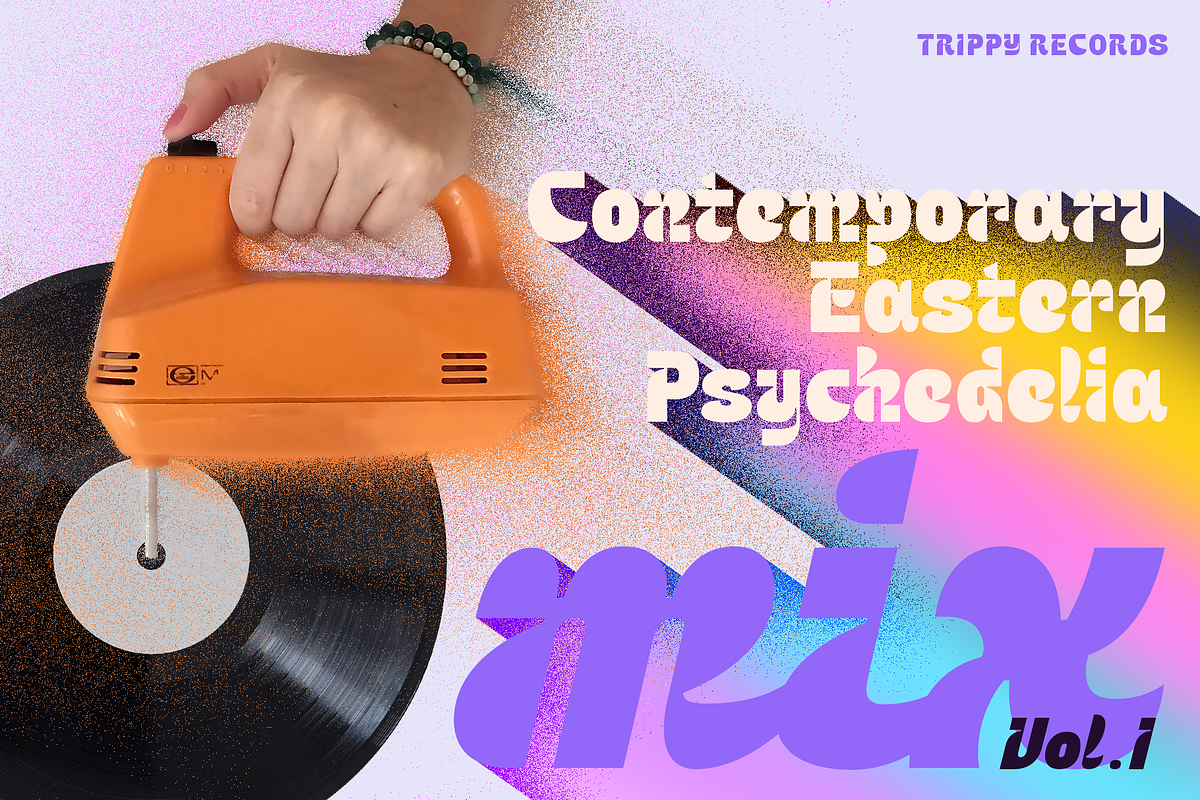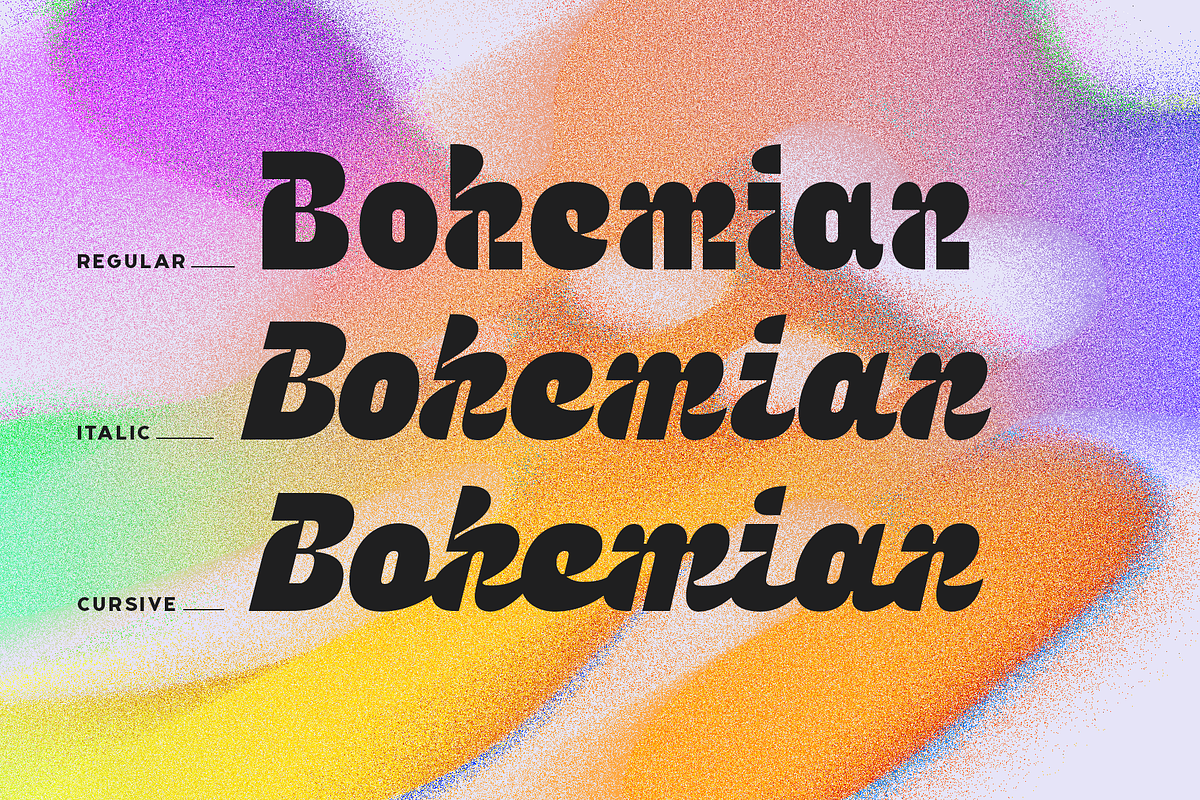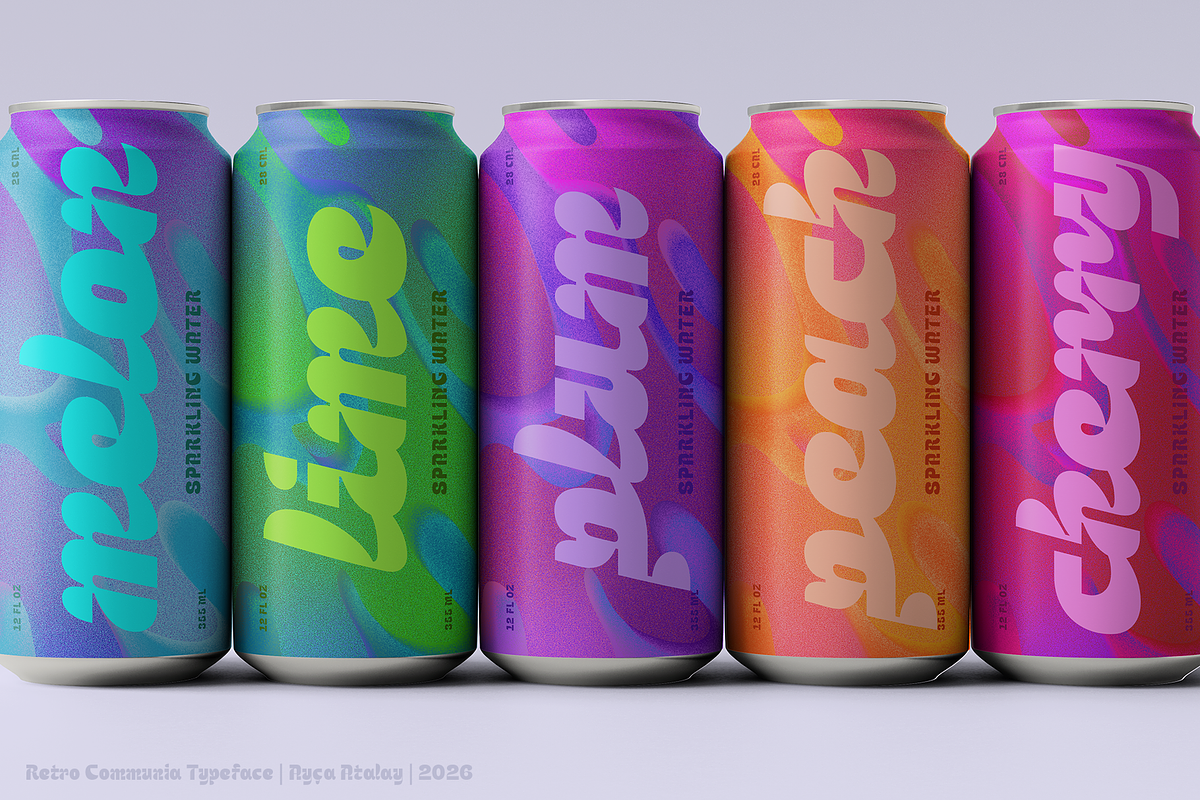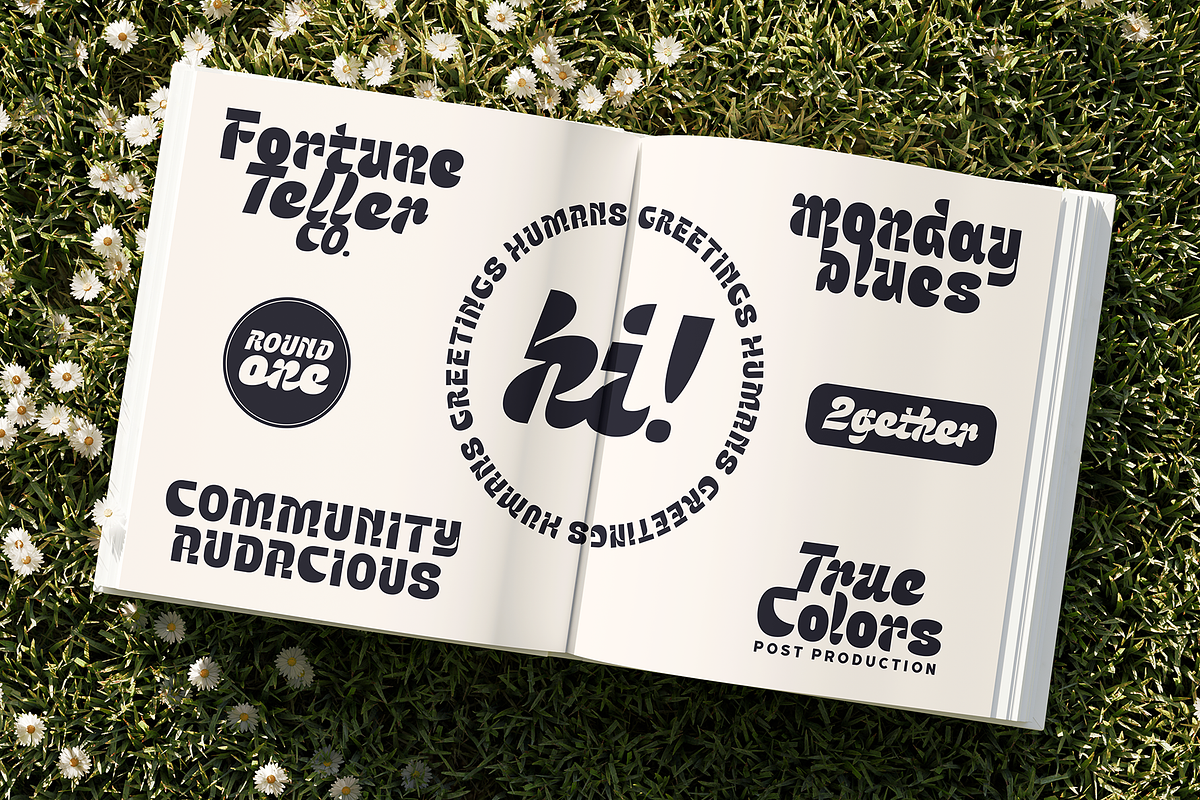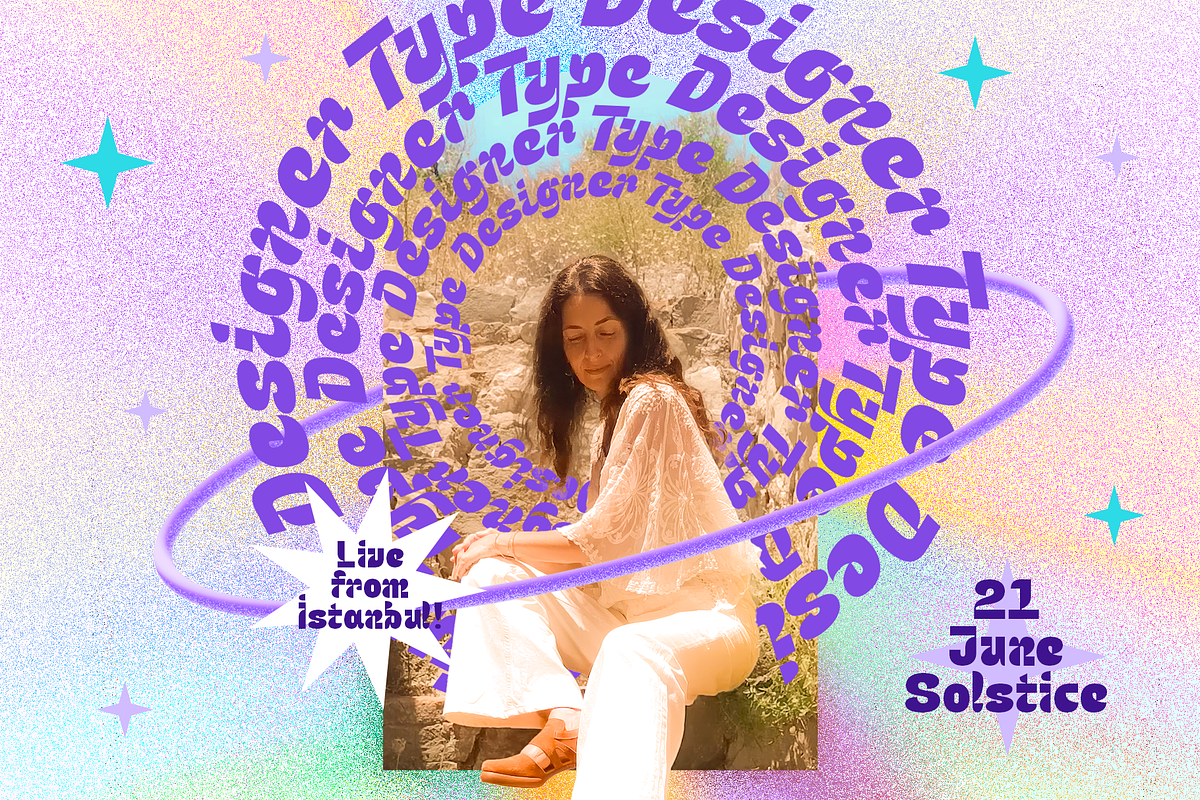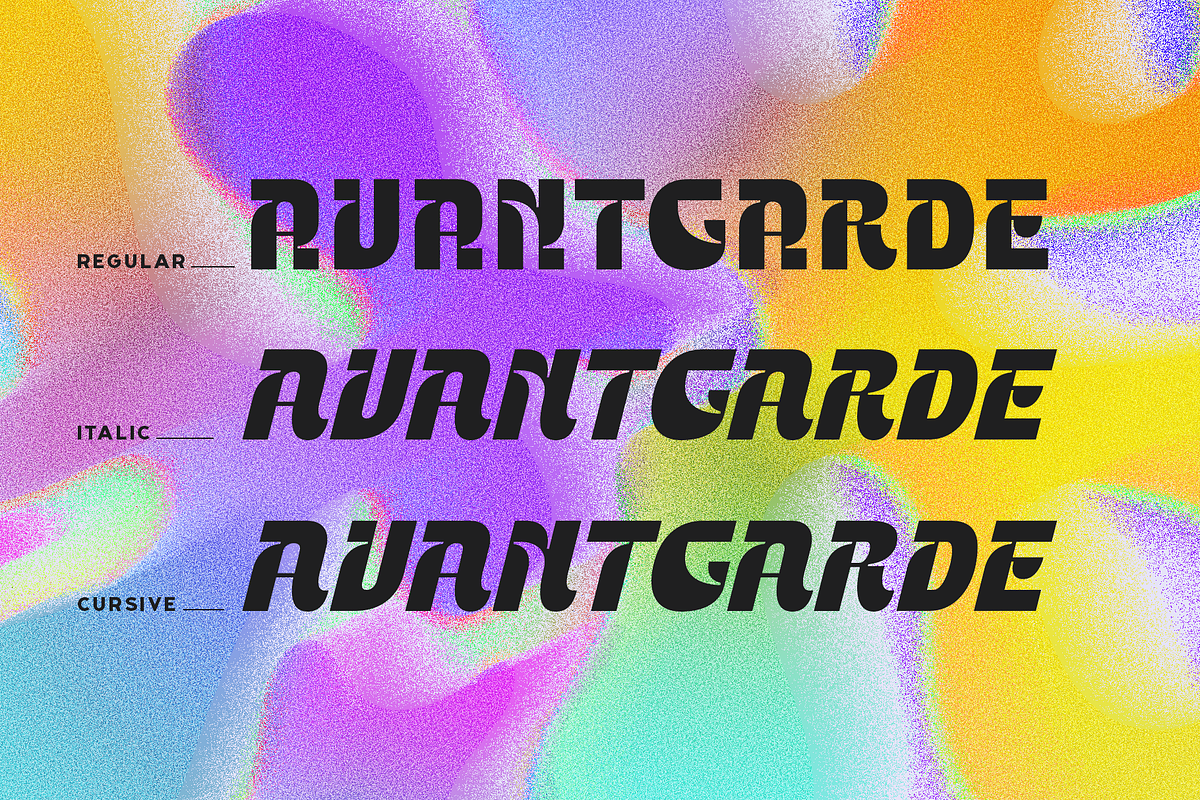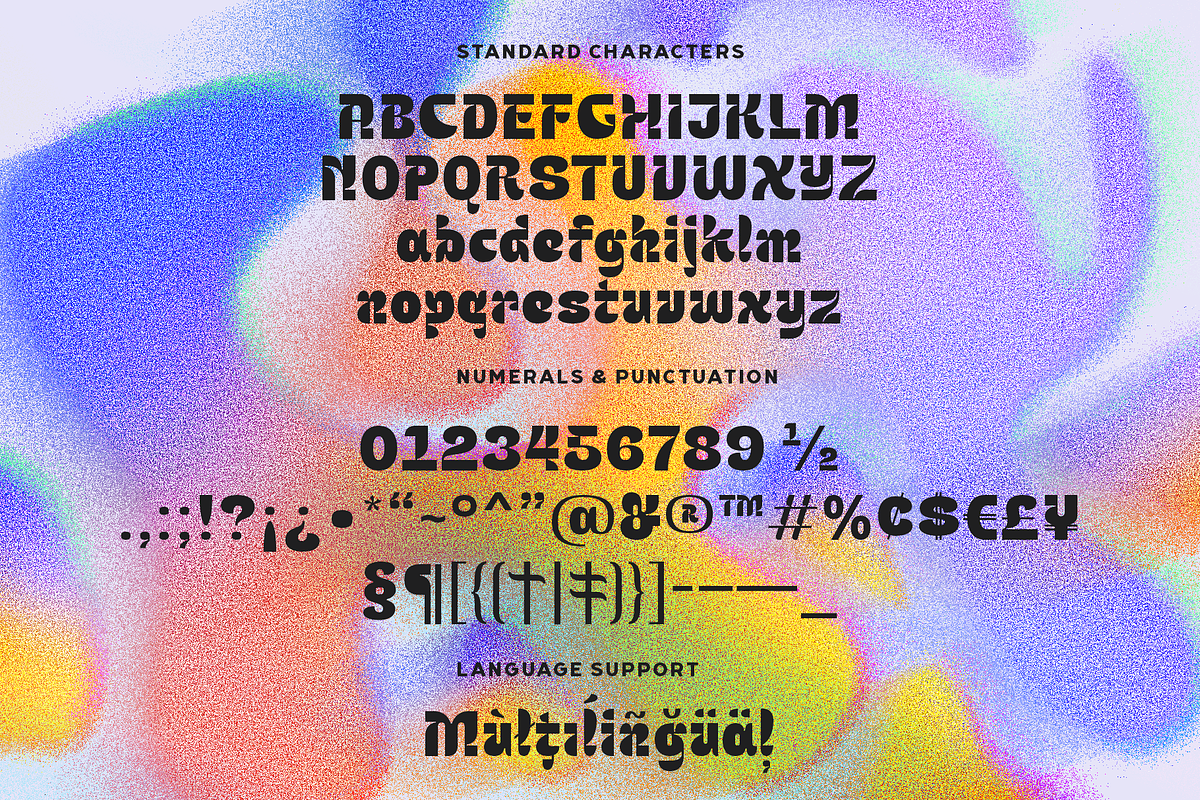
Retro Communia | 70s Typeface
Retro Communia | A 70s Display Typeface
Retro Communia is a bold and daring display typeface that comes in three distinct styles: **Regular, Italic, and Cursive. **
With its vintage flair and wild expressiveness, this font is sure to be an eye-catcher in any context.
Ideal for branding, packaging, and user interfaces, Retro Communia stands out with its unique character and versatility, making it a perfect choice for projects that require a touch of boldness and creativity.
\- Three Font Styles: Regular, Italic, and Cursive
\- Uppercase and Lowercase Letters
\- Complete Set of Punctuation Marks
\- Numerals and Fractions
\- Multilingual Support